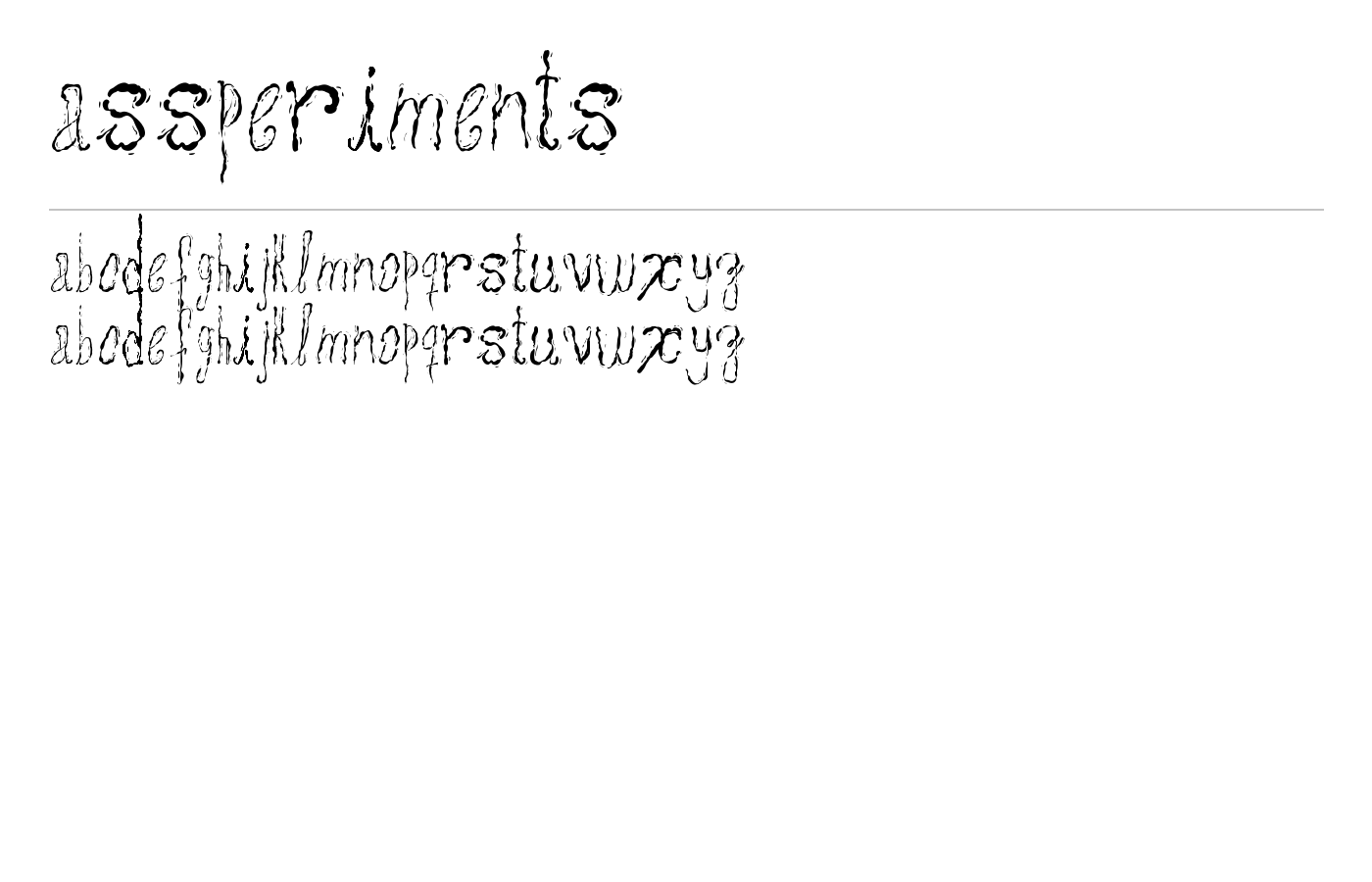
Assperiments is a unique, decorative serif font with a distressed, organic texture that gives it a hand-drawn, experimental feel. Its irregular stroke weights and slightly condensed letterforms create a quirky and artistic vibe, making it ideal for creative projects that seek to stand out with an unconventional, textured style. This font works best in logos, posters, and artistic editorial designs where a distinctive, handcrafted aesthetic is desired.
assperiments Font
About assperiments Font
| Font family | assperiments Font |
| Designer | Boro, Magno, Gabriel e Luana |